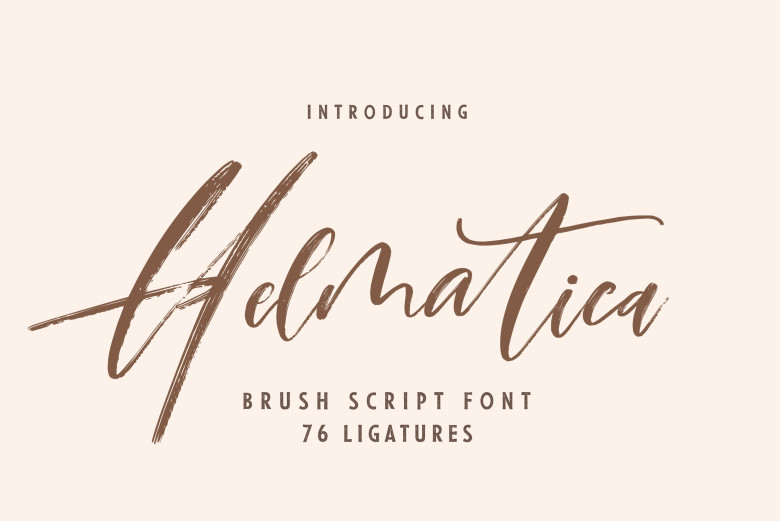
Helmatica Font
With intricate, artistic flourishes and flowing, beautified lines, Helmatica features a delicate design that suggests beauty and sophistication. Scriptina is ideal for wedding invitations as well as other higher-end projects such as branding, scriptina’s ageless design brings a dash of style.
Helmatica Brush Script Font